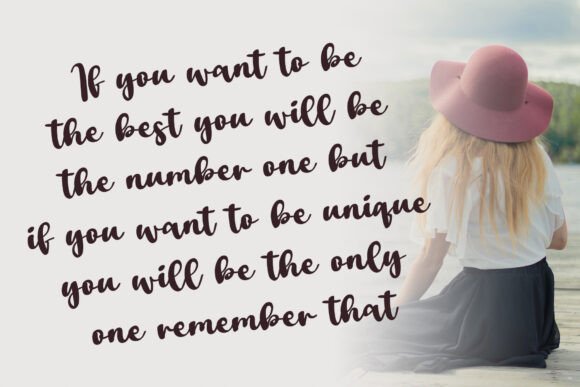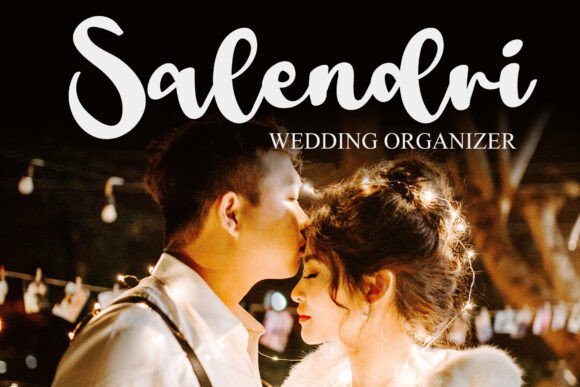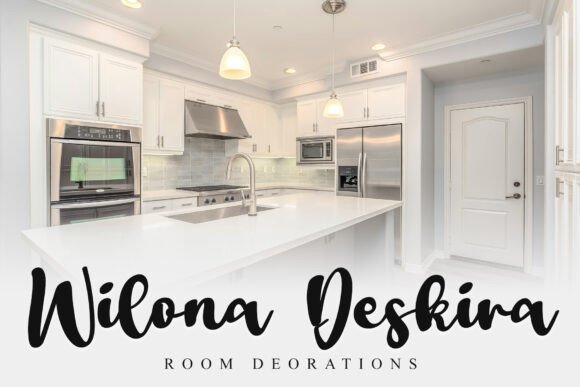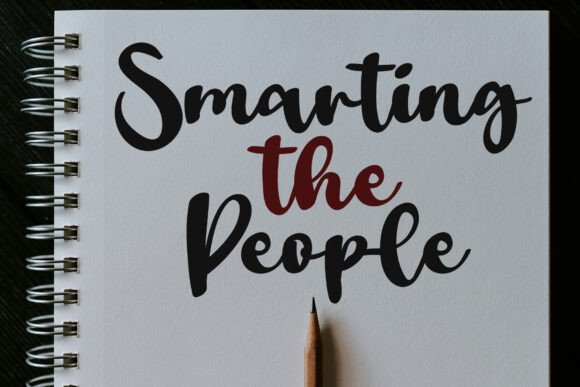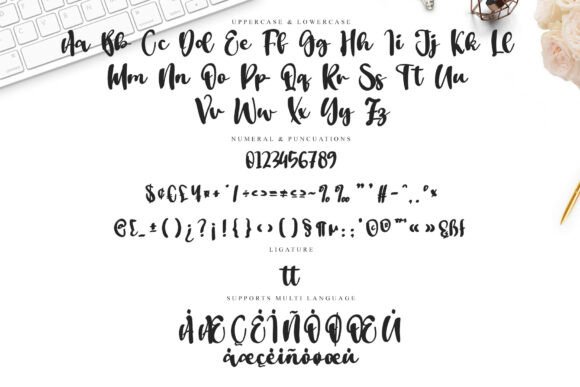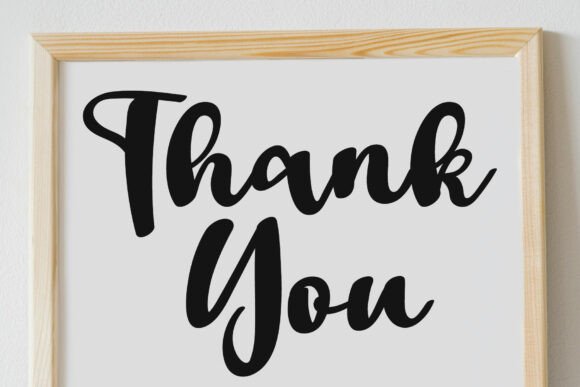
The Perfect Signature: Unlocking the Power of Autograph Font
Have you ever been captivated by a beautiful signature on a piece of art or a handwritten letter? The way the strokes flow, the curves dance, and the overall sense of elegance leaves an impression. As creatives, we’re constantly seeking that perfect combination of style and sophistication to elevate our designs. That’s where the Autograph Font comes in – a powerful tool that blends the charm of handwritten calligraphy with a modern, assertive touch.
This versatile font is designed to make a statement, whether it’s in a striking logo, a stylish headline, or an eye-catching branding element. For designers, the Autograph Font is a valuable asset that can add a level of sophistication and charisma to any project. With its bold, fluid strokes, it’s the perfect choice for those who want to make a lasting impression.
Autograph Font Key Features
- Unique Characteristics: Features a unique blend of elegant and cursive styles, making it ideal for formal and personal signatures.
Autograph Font Review
As a designer, I’ve had the chance to work with the Autograph font, and I must say it’s a unique and intriguing typeface. ✨ One of its strengths is its elegant and sophisticated feel, making it perfect for formal invitations, wedding stationery, or high-end branding.
Another aspect that stands out is its versatility. ✨ The font comes in a range of weights and styles, allowing you to create a cohesive visual identity across various mediums, from print to digital.
However, there are some limitations to consider. ⚠️ The font may not be the best choice for body text, as it can be quite ornate and may not be as readable at smaller font sizes.
Additionally, ⚠️ some users may find the font’s elegance to be overly flashy or distracting, which can be a concern for more conservative brands or designs.
Overall, I think Autograph font is a great choice for designers who want to add a touch of sophistication and elegance to their projects. While it may have some limitations, its unique character and versatility make it a valuable addition to any designer’s toolkit.
Key Takeaways
- Unique, elegant feel perfect for formal designs
- Versatile, with a range of weights and styles
- May not be suitable for body text at smaller font sizes
- May be too flashy for conservative brands or designs
Common use cases for the Autograph Font include:
– Personalized invitations and stationery
– Customized photo albums and frames
– Unique business cards and letterheads
– Special occasion cards and gifts
– Tips for getting the most out of the Autograph Font include experimenting with different font sizes, colors, and styles to achieve a unique look, and using the font in combination with other design elements to create a cohesive design.